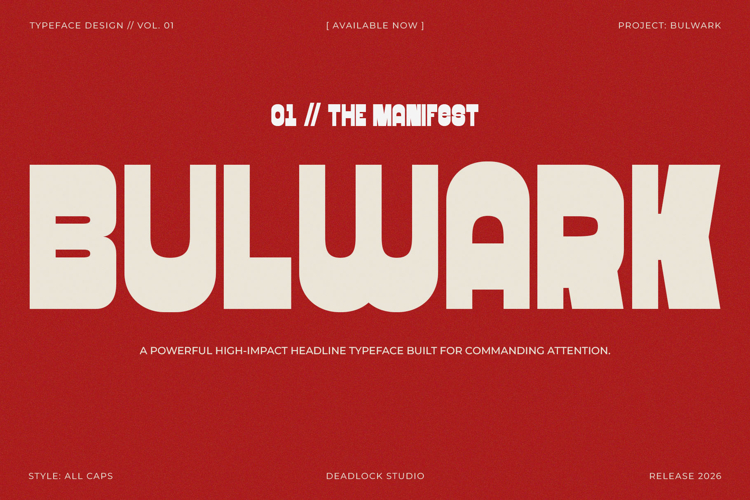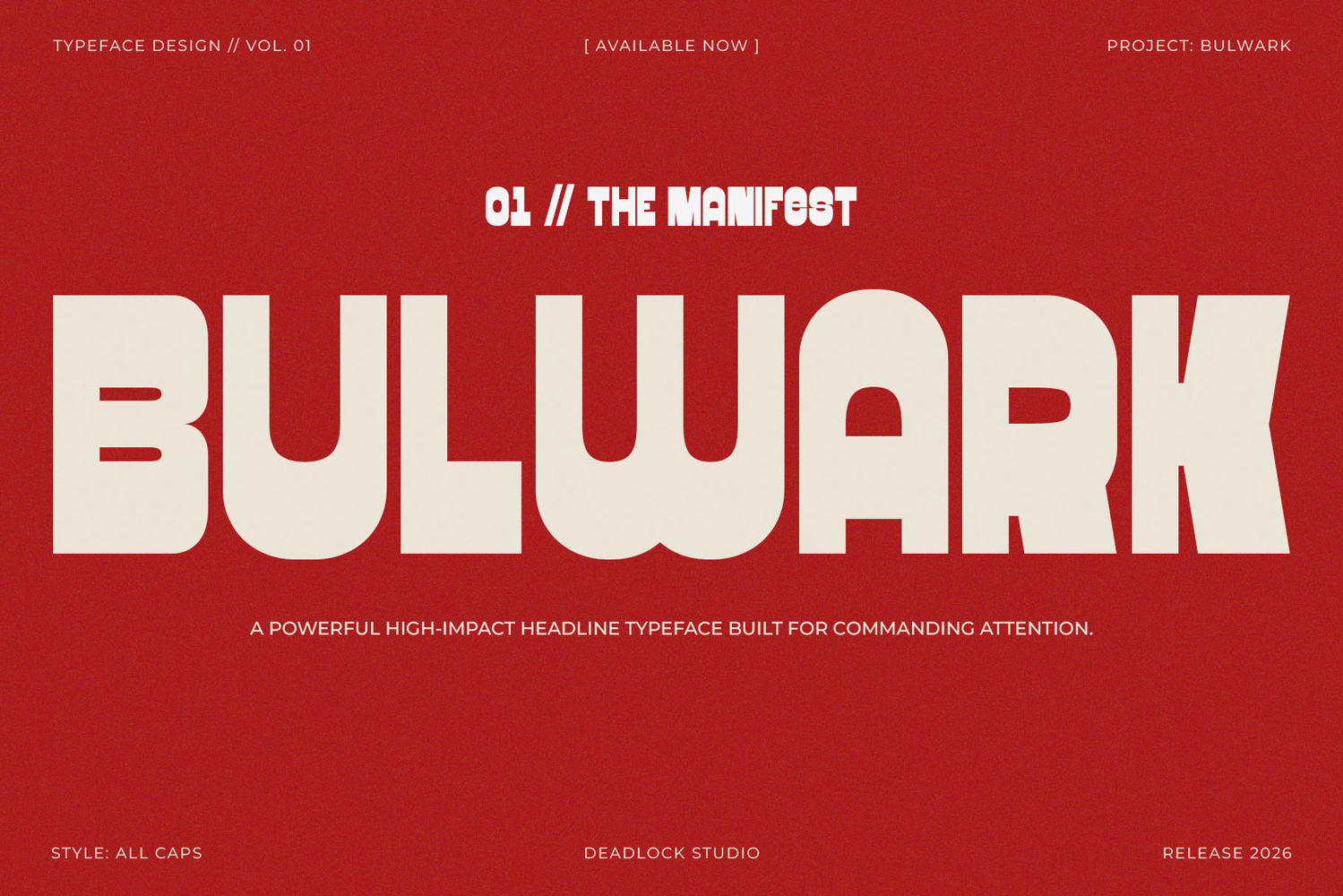
BULWARK is a monolithic allcaps typeface built for maximum impact. Inspired by brutalist architecture, it delivers a solid, unyielding presence to any layout.
Featuring a Dual Case System, BULWARK offers distinct geometric variations between uppercase and lowercase characters, allowing for a unique visual rhythm while maintaining its industrial strength.
Ideal for:
Headlines, Posters, Branding, and Industrial Signage.
Headlines, Posters, Branding, Apparel Design, Industrial Signage, and Bold Web Interfaces.